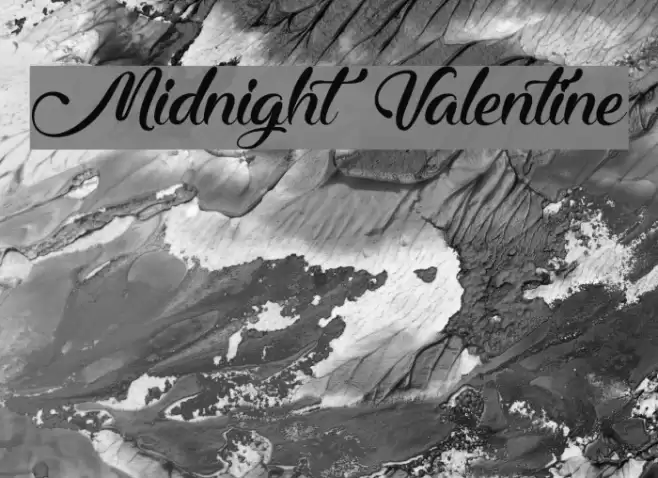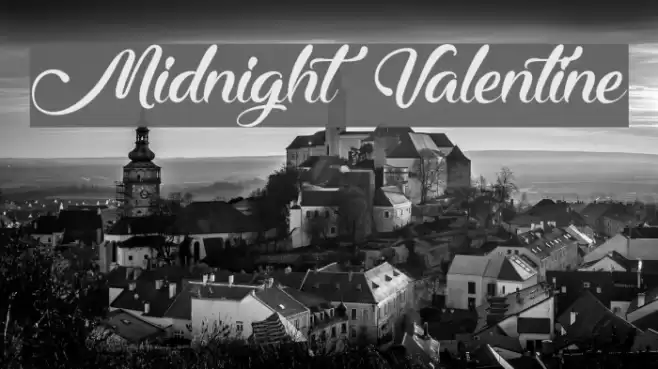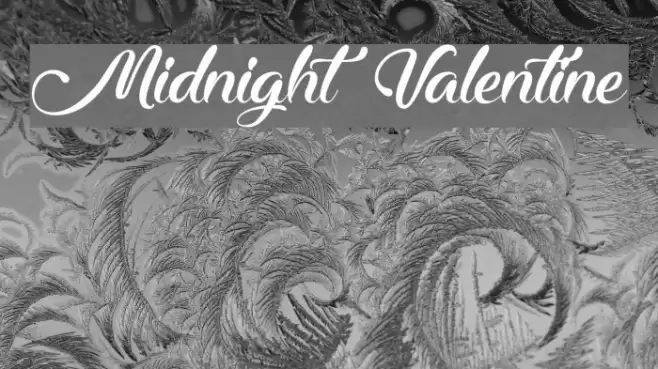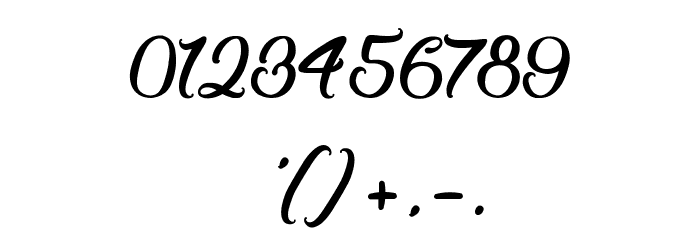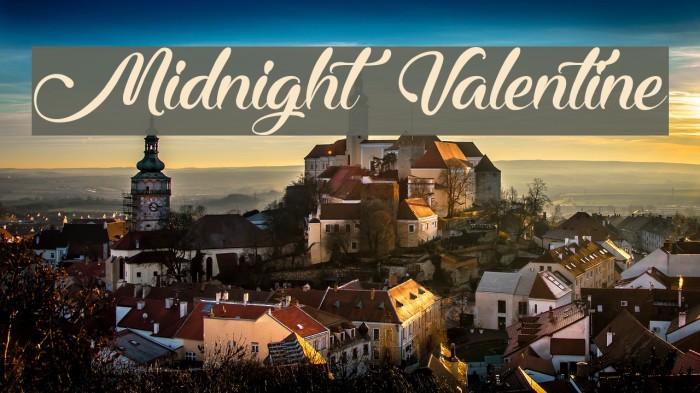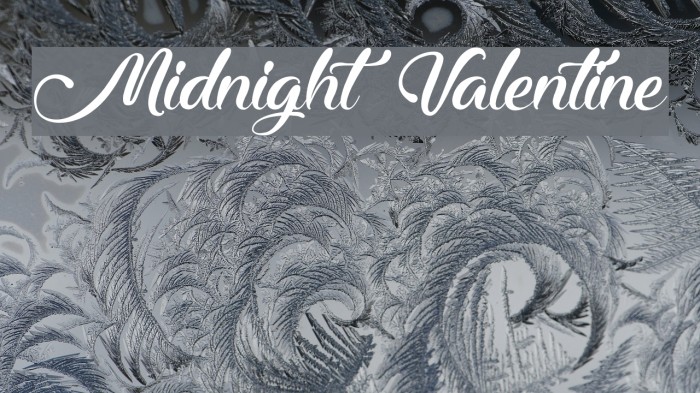
Midnight Valentine Font
Midnight Valentine Description
This font features an elegant and flowing script style, characterized by its smooth, cursive lines and intricate loops. The uppercase letters are ornate, with decorative swashes that add a touch of sophistication. The lowercase letters maintain a consistent flow, enhancing readability while preserving the artistic flair. Numbers and special characters are designed to complement the overall aesthetic, making them suitable for various decorative purposes. The font's graceful curves and stylish appearance make it ideal for projects that require a touch of elegance and romance.
An elegant, flowing script font with ornate swashes and smooth cursive lines from Uncategorized fonts.
- Proposed Projects: Ideal for wedding invitations, greeting cards, branding, and romantic-themed designs.
- Use Case: Logos, Invitations, Decorative text